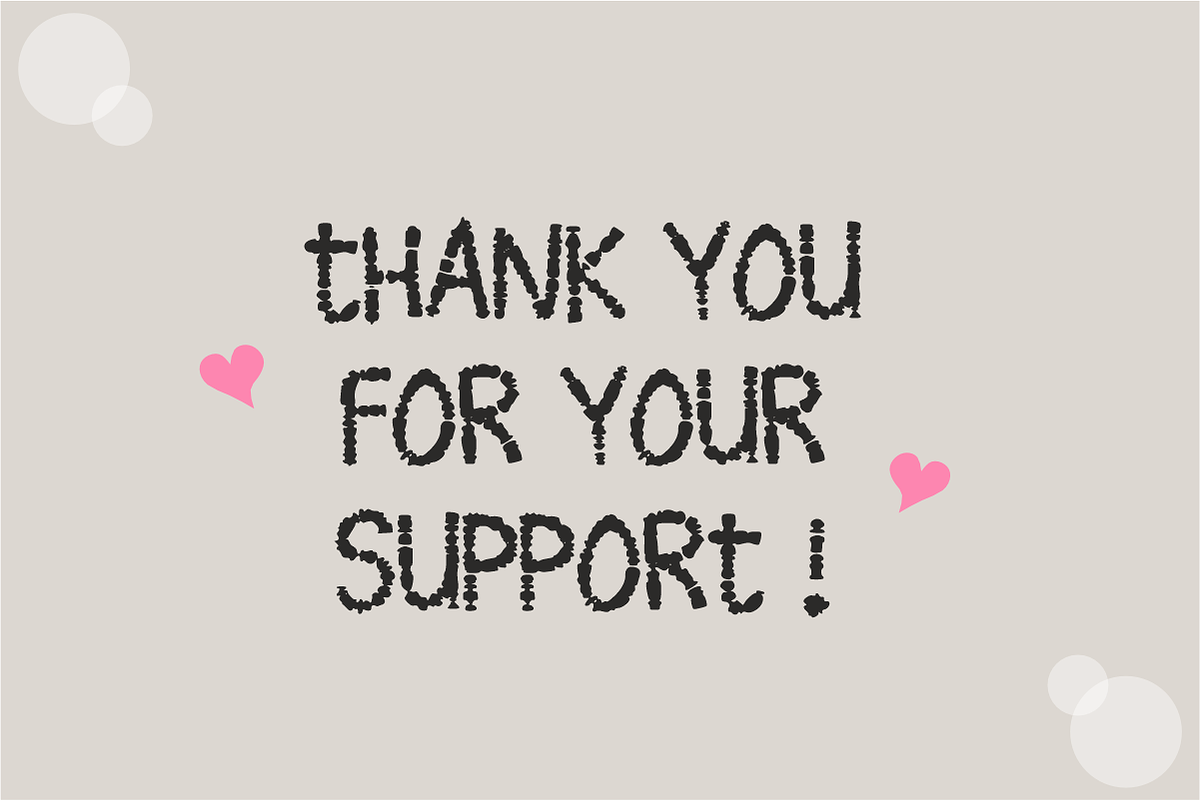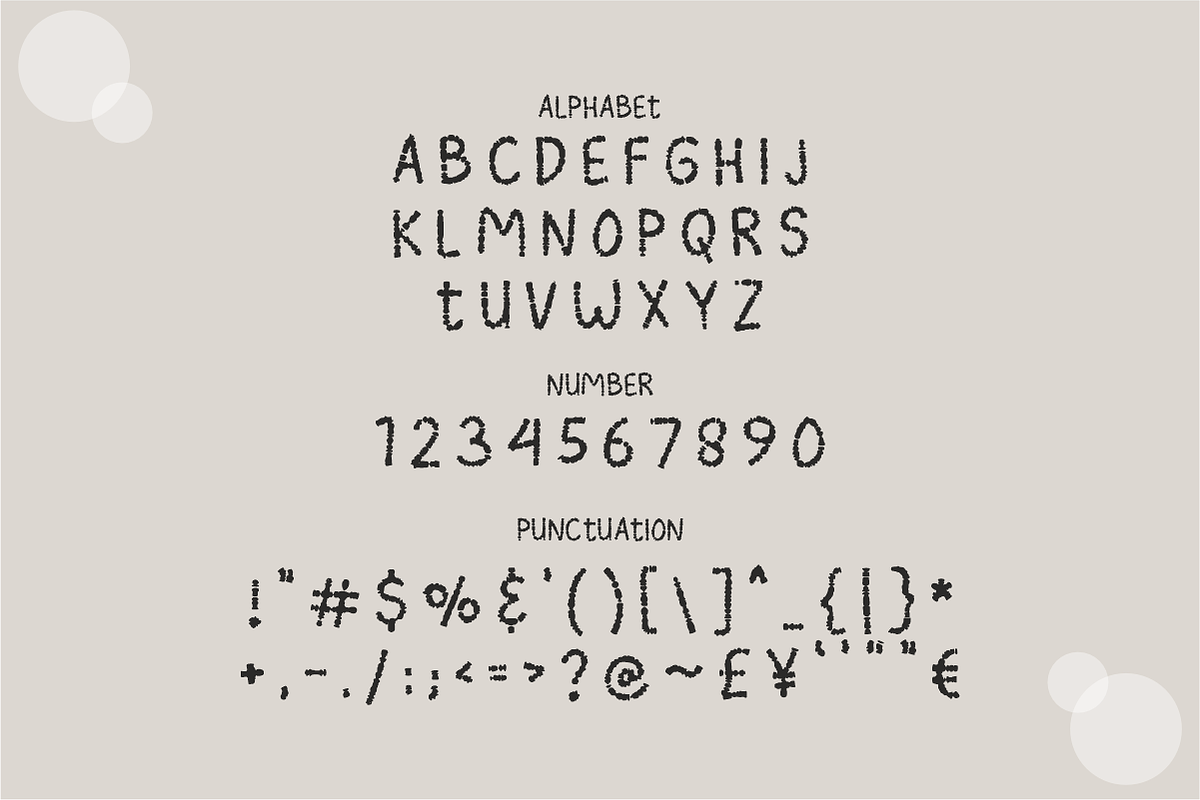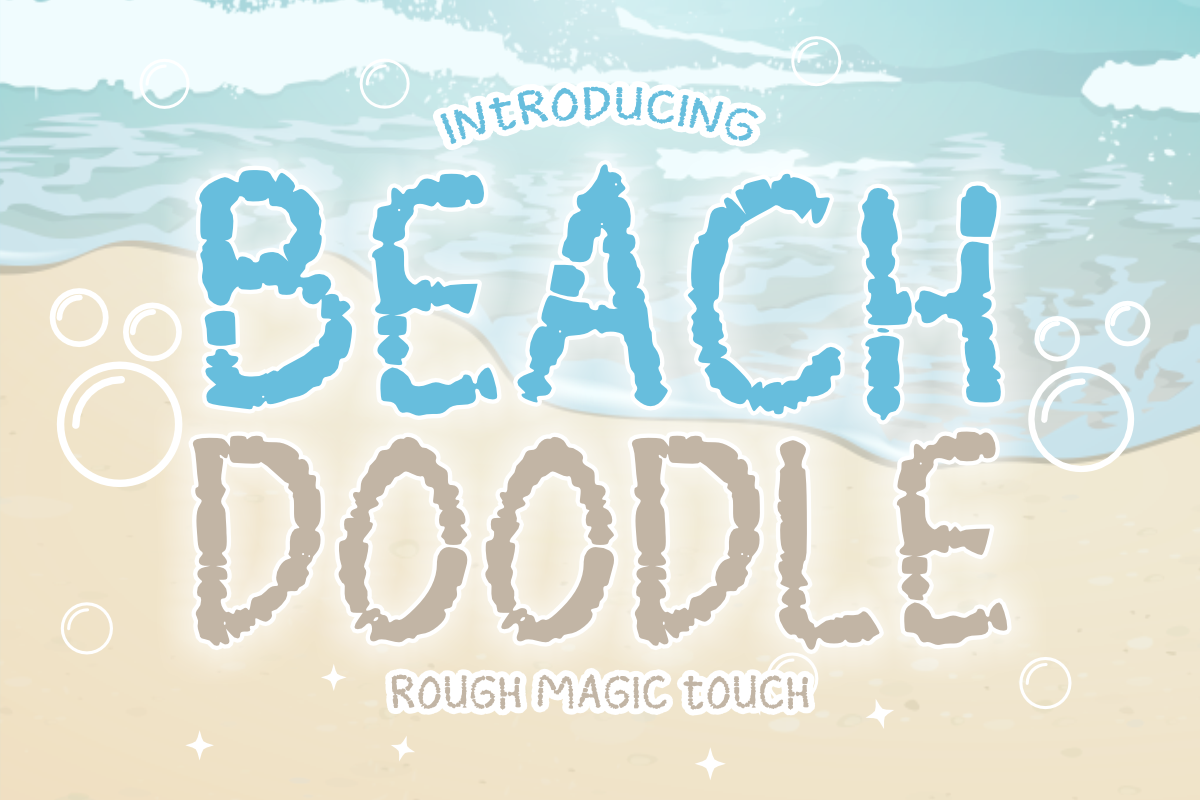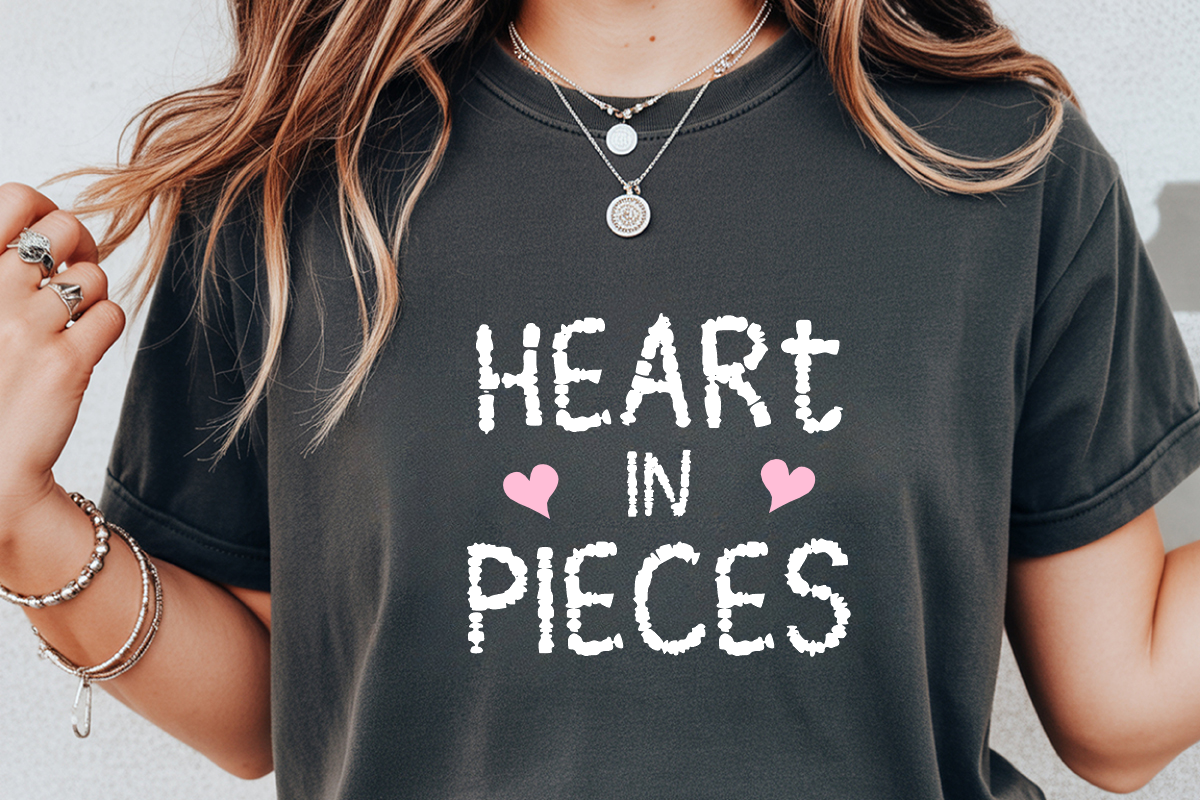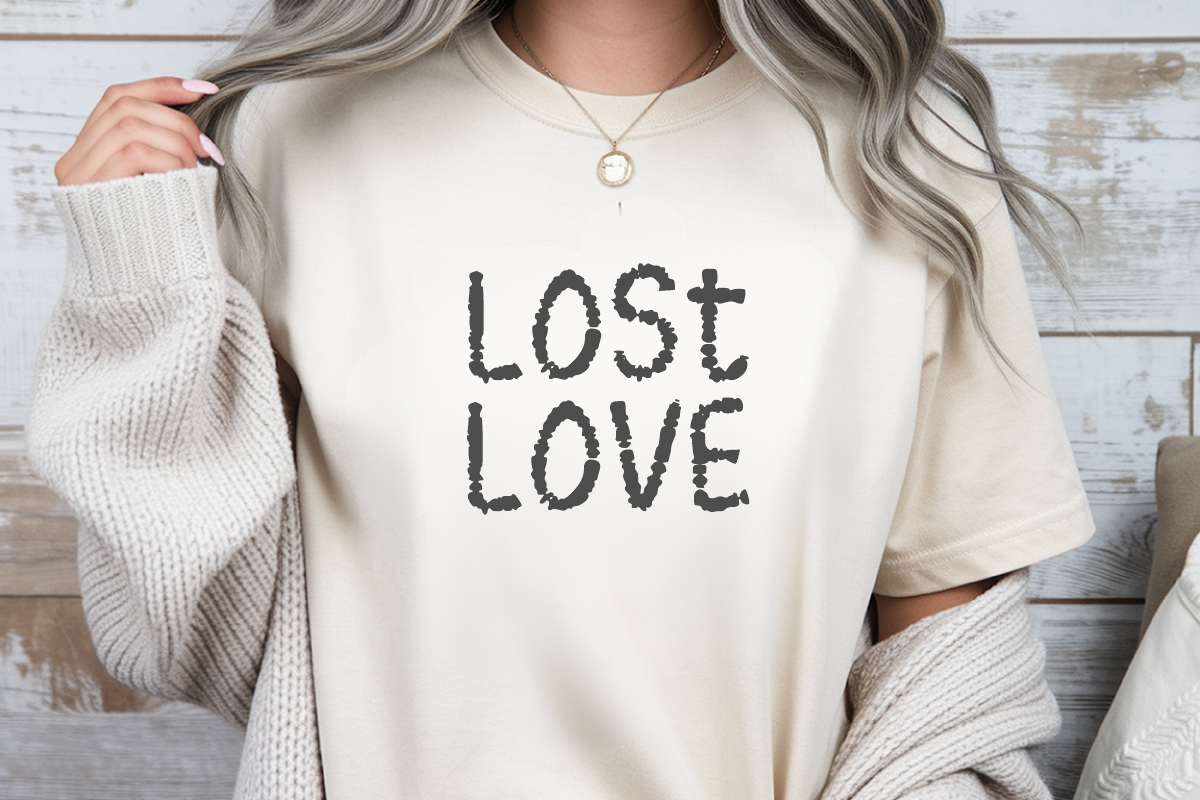
Beach Doodle - Textured Display Font
Beach Doodle - Rough Textured Display Font
Bring a relaxed, coastal vibe to your creative projects with Beach Doodle! Featuring an authentic "rough magic touch," this hand-sketched textured display font perfectly captures the raw, organic feel of summer adventures and sun-soaked aesthetics.
Designed with unique rough edges and an organic doodle texture, Beach Doodle is engineered to give your headlines, logos, and marketing campaigns an instant, effortless casual charm. It's highly expressive, visually striking, and fully optimized for professional design layouts.
All-Caps Character Set (Textured, rough uppercase letters with a sketched feel)
Numbers & Basic Punctuation (Essential, simple symbols included)
Summer-Themed Apparel & Coastal Merchandising 👕
Eco-Friendly Product Packaging & Organic Labels 📦
Cafe Menus, Food Trucks, & Hospitality Branding 🍹
Social Media Campaigns & Editorial Content Creation 📱
Creative Logo Design & Visual Brand Identities 🎨